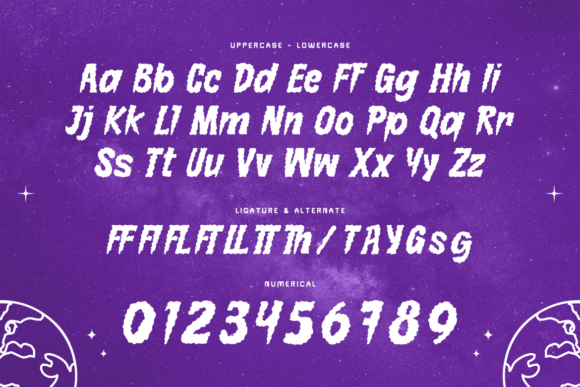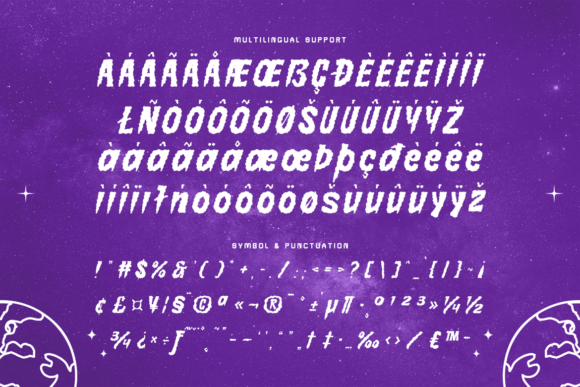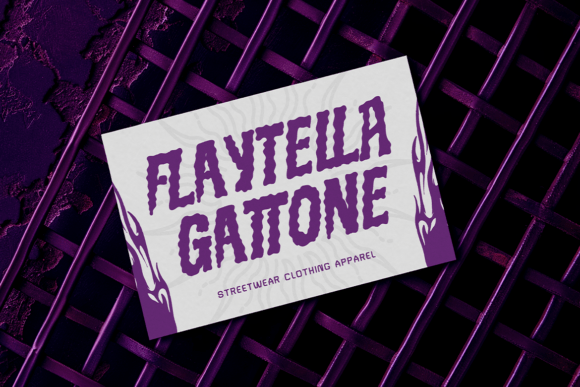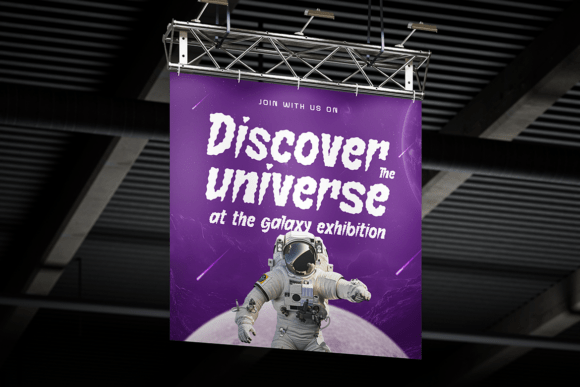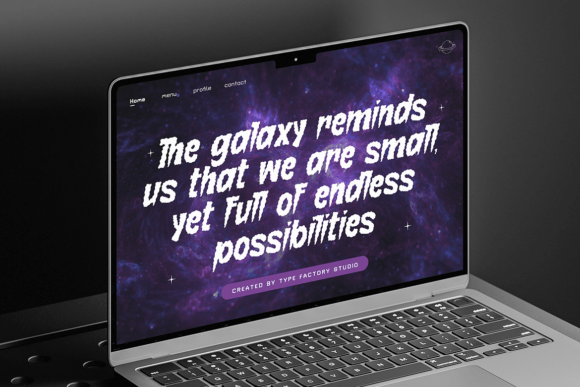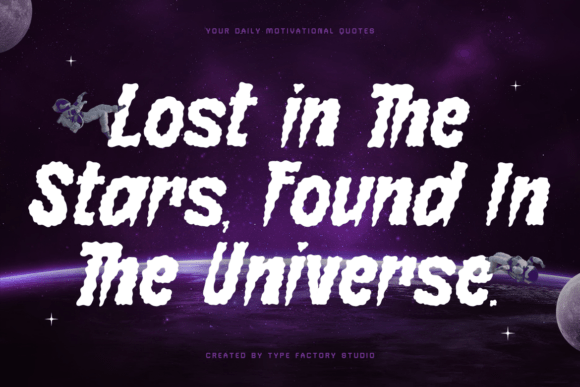
Introduction to Nebulafury Font
As a designer, have you ever found yourself staring up at the night sky, lost in the endless expanse of stars and galaxies? It’s moments like these that spark our creativity and inspire us to create something truly out of this world. And that’s exactly what the Nebulafury Font is – a cosmic design resource that’s sure to transport your creative project to new heights.
This high-quality font is a game-changer for designers looking to add a touch of otherworldly elegance to their work. With its rough, organic letterforms and hand-crafted texture, Nebulafury Font is perfect for creating eye-catching posters, quotes, and event graphics that demand attention. Whether you’re working on a free download or a high-stakes branding project, this versatile design resource is sure to impress.
Key Features of Nebulafury Font
- Unique blend of futuristic and cosmic elements, ideal for creative projects requiring an otherworldly feel.
- High-quality font with crisp lines and detailed textures, suitable for both digital and print applications.
- Perfect for adding a touch of futuristic flair to posters, flyers, and brochures, or as a design element in video games and animations.
Honest Review: Nebulafury Font
As a designer, I’m always on the lookout for high-quality fonts that can elevate my creative projects. The Nebulafury Font is one such resource that caught my attention, and I’m excited to share my honest review with you.
- ✨ Unique and futuristic design that’s perfect for sci-fi or tech-related projects
- ✨ High-quality glyphs that render well on both light and dark backgrounds
- ✨ Supports both transparent and solid backgrounds, giving designers maximum flexibility
- ⚠️ Limited character set, which may not be suitable for complex or lengthy texts
- ⚠️ Not all glyphs are equally detailed, which can affect the overall font’s consistency
Overall, the Nebulafury Font is a great addition to any designer’s toolkit, especially for those working on futuristic or high-tech projects. While it may have some limitations, its unique design and high-quality glyphs make it a valuable resource for creative projects.
Nebulafury Font
Tips for Getting the Most Out of Nebulafury Font
To get the most out of the Nebulafury Font, experiment with different font sizes, colors, and combinations. Use the font’s unique characteristics to create visually appealing designs.
The Nebulafury Font is perfect for creative projects such as posters, flyers, and social media graphics. Its unique characteristics make it ideal for adding a touch of creativity to your designs.